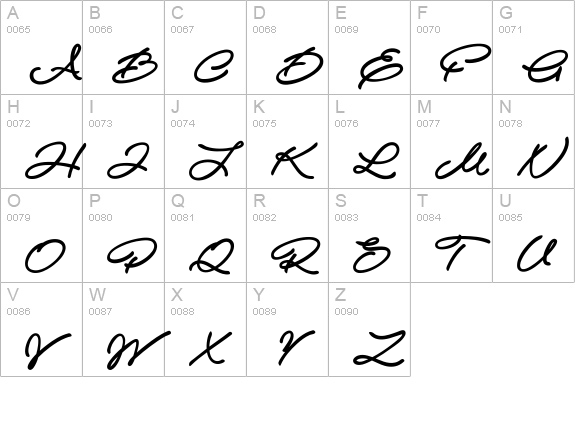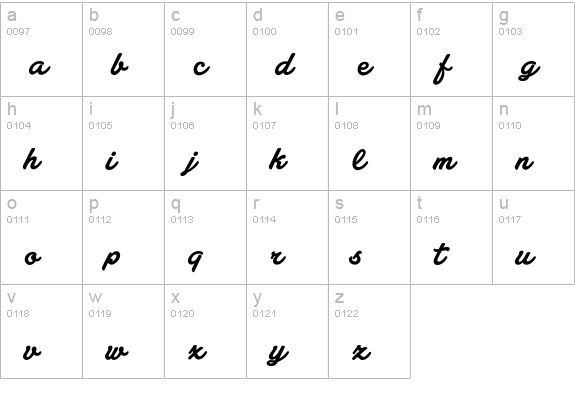
Atelas Personal Use Only Font Details
Atelas Personal Use Only font is a stunning display typeface that effortlessly combines elegance with a touch of modernity. Its unique and refined letterforms are sure to captivate any viewer, making it an excellent choice for a wide range of design projects. With its graceful curves and distinct letter shapes, Atelas Personal Use Only font adds a sophisticated and polished look to any text. Whether you're designing a logo, creating a website, or working on a branding project, this font will elevate your designs and make them stand out from the crowd. And the best part is, Atelas Personal Use Only font is completely free! Yes, you heard it right. You can freely download this font at FontsMarket.com, where it is available for personal use. This means you can use it for any non-commercial projects, such as personal blogs, social media posts, or invitations. With Atelas Personal Use Only font, you have the freedom to unleash your creativity without any limitations. Its versatility and timeless appeal make it a valuable addition to any designer's toolkit. So why wait? Download Atelas Personal Use Only font today and elevate your designs to new heights.